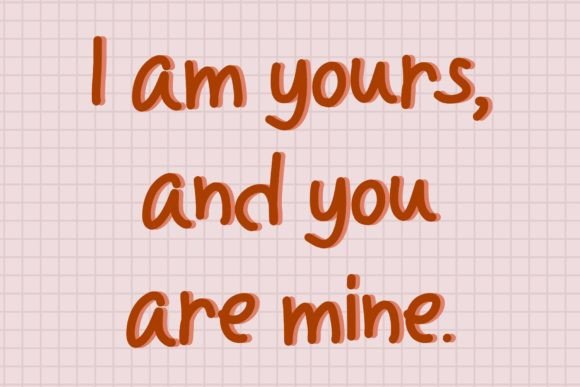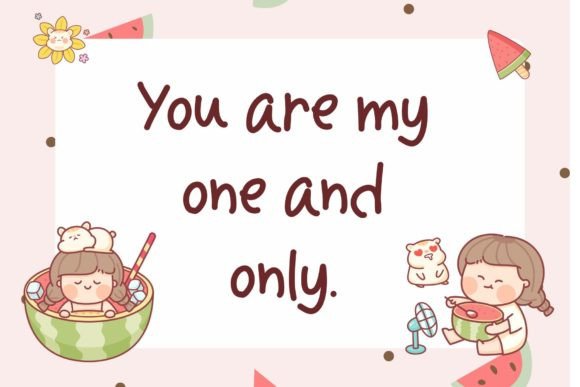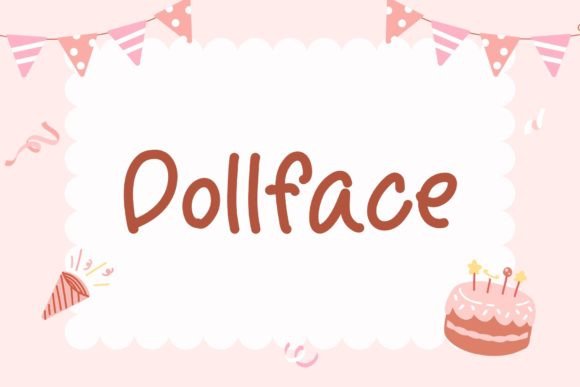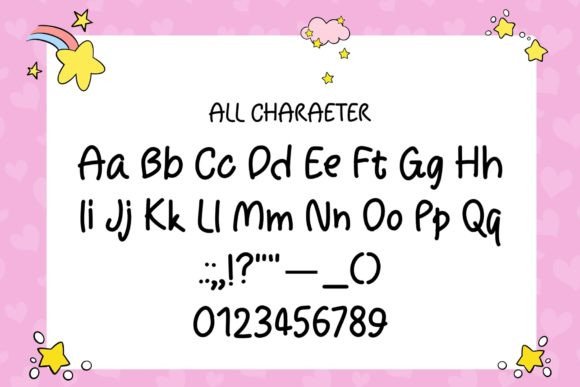
Introducing Dollface Font: The Epitome of Beauty and Charm
In the world of typography, few fonts capture the essence of elegance and sophistication as effortlessly as Dollface font. This stunning typeface is designed to add a touch of luxury and refinement to your projects, making it the perfect choice for designers and crafters looking to create visually stunning and captivating content. With its delicate letterforms and graceful curves, Dollface font exudes femininity and charm, making it an ideal choice for a wide range of applications.
The Beauty of Dollface Font
Dollface font is a masterclass in typographic design, with each letterform carefully crafted to convey a sense of elegance and poise. The font’s delicate curves and refined lines create a sense of sophistication, making it perfect for projects that require a touch of luxury and refinement. Whether you’re creating wedding invitations, fashion magazines, or beauty branding, Dollface font is sure to enhance the overall aesthetic and create a sense of allure.
Key Features of Dollface Font
- Elegant and Refined Design: Dollface font features a delicate and refined design, making it perfect for projects that require a touch of sophistication.
- Feminine and Elegant: The font’s feminine and elegant design makes it perfect for projects that require a touch of charm and allure.
- Delicate Letterforms: Each letterform is carefully crafted to convey a sense of elegance and poise.
- Graceful Curves: The font’s graceful curves add a touch of sophistication and refinement to any project.
- Versatile: Dollface font is perfect for a wide range of applications, including wedding invitations, fashion magazines, beauty branding, and more.
Dollface font is perfect for designers and crafters looking to add a touch of elegance and sophistication to their projects. Whether you’re creating digital content or physical products, this font is sure to enhance the overall aesthetic and create a sense of allure. With its versatility and range, Dollface font is an ideal choice for a wide range of projects, including:
- Wedding Invitations: Add a touch of elegance and sophistication to your wedding invitations with Dollface font.
- Fashion Magazines: Create stunning fashion magazines with Dollface font, perfect for showcasing the latest fashion trends.
- Beauty Branding: Enhance your beauty branding with Dollface font, perfect for creating luxurious and high-end branding materials.
- Digital Content: Add a touch of elegance and sophistication to your digital content, including social media graphics, blog posts, and more.
Why Choose Dollface Font?
With so many fonts to choose from, why choose Dollface font? Here are just a few reasons why Dollface font stands out from the rest:
- Unique and Elegant Design: Dollface font features a unique and elegant design that is sure to capture the attention of your audience.
- High-Quality Typography: Each letterform is carefully crafted to ensure high-quality typography that is clear and easy to read.
- Versatile and Flexible: Dollface font is perfect for a wide range of applications, making it a versatile and flexible choice for designers and crafters.
| Font Name | Dollface Font |
| Author | MyFontsShop |
In conclusion, Dollface font is a stunning and elegant typeface that is perfect for designers and crafters looking to add a touch of sophistication and charm to their projects. With its delicate letterforms, graceful curves, and versatile design, Dollface font is sure to enhance the overall aesthetic and create a sense of allure. Whether you’re creating wedding invitations, fashion magazines, or beauty branding, Dollface font is the perfect choice for any project that requires a touch of elegance and refinement.